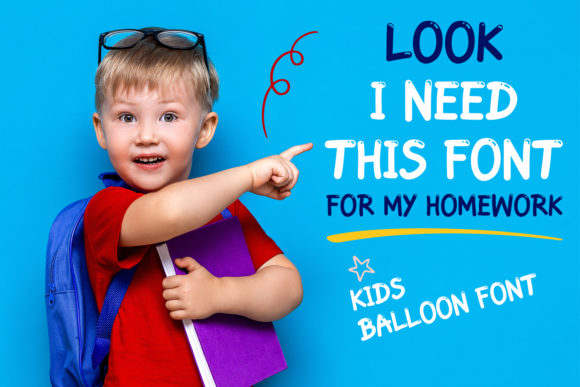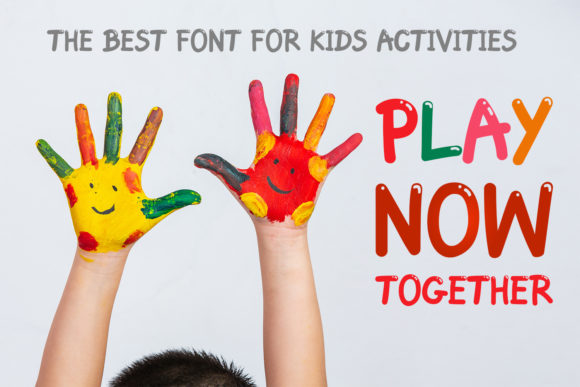
Kids Balloon Font
About Kids Balloon Font
Kids Balloon embodies fun, quirkiness and authenticity. This enchanting handwritten font will turn any creative idea into a true standout. Get creative with its childlike playfulness, and use it to brighten up any kids and school project!